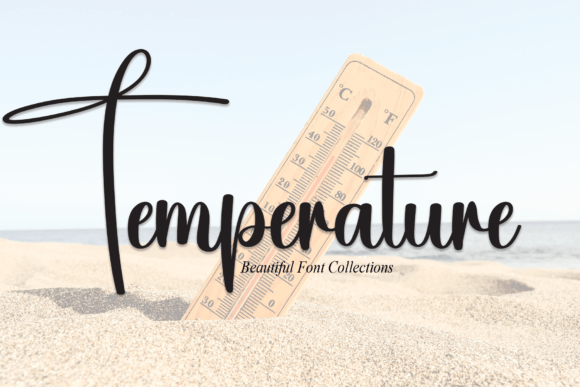
Introducing Temperature Font: A Typographic Masterpiece That Captivates and Inspires
In the realm of typography, where words dance and visuals ignite, there lies a font that transcends boundaries, leaving an indelible mark on the hearts of designers and creatives alike. Its name, Temperature Font, is a testament to its ability to evoke emotions, ignite passions, and inspire creations that resonate with audiences worldwide.
Temperature Font is an exquisite script font, meticulously crafted by the talented artisans at Andikastudio. Its design strikes a delicate balance between the classic elegance of calligraphy and the modern sensibilities of contemporary design. With its graceful curves, delicate flourishes, and captivating rhythm, Temperature Font exudes an aura of sophistication and charm that is simply irresistible.
Designed with the utmost care and attention to detail, Temperature Font boasts a wide range of stylistic alternates, ligatures, and swashes, empowering you to unleash your creativity and produce stunning typographic compositions that leave a lasting impression. Whether you're a seasoned designer or just starting your creative journey, Temperature Font is the perfect companion to elevate your projects to new heights of excellence.